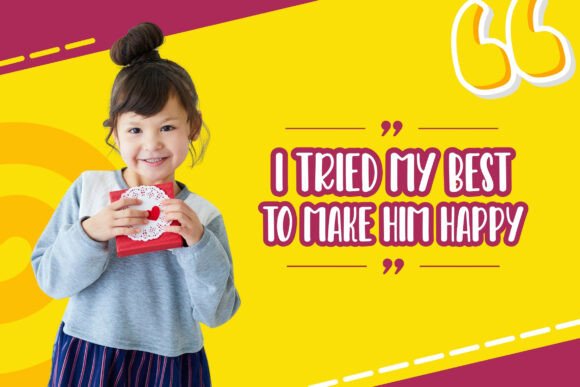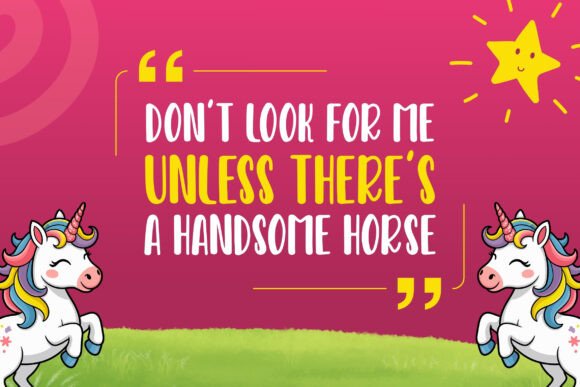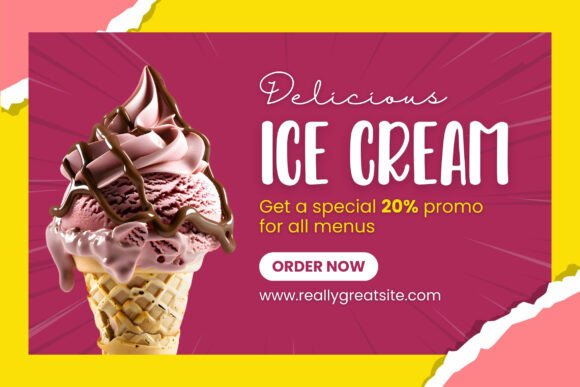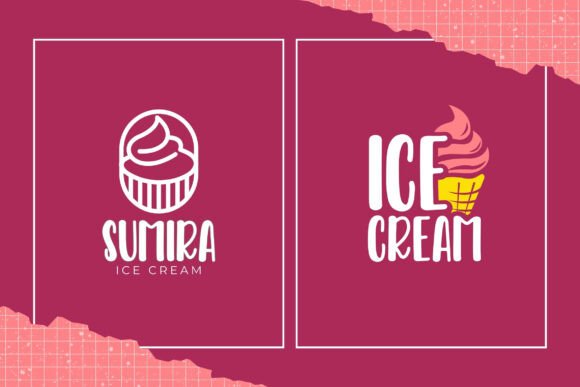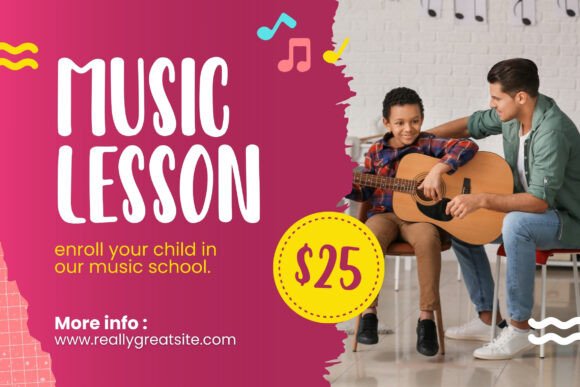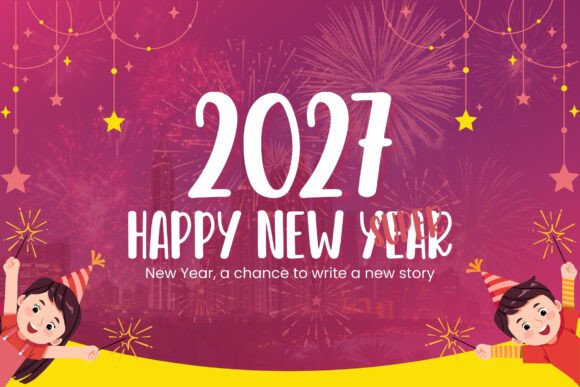
Discover the Whimsical World of Cute Sumira Font
Have you ever been in the middle of a design project, and suddenly, you’re stuck on finding the perfect font? I recall a recent experience where I was working on a children’s storybook, and my client requested a font that was both playful and calming. After scouring through numerous font libraries, I stumbled upon Cute Sumira – a whimsical and dreamy kids font that instantly captured the essence of childhood magic.
A Personal Review of Cute Sumira
What I Love About Cute Sumira ✨
- ✨ Slim strokes and rounded forms that give it a soft, gentle appearance
- ✅ Perfect for designs that require a sense of imagination and storytelling
- 🎨 Ideal for creative projects inspired by childhood dreams, such as children’s storybooks and fairy-tale designs
- 🌈 The font’s playful yet calm demeanor makes it suitable for a wide range of applications, from cute illustrations to kids’ branding
- ⚠️ Limited availability of stylistic alternates, which might restrict design flexibility
- 🤔 Some characters may appear slightly condensed, which could affect readability at smaller font sizes
The Designer’s Inspiration Behind Cute Sumira
Cute Sumira was designed with the intention of capturing the essence of childhood imagination and storytelling. The font’s creator drew inspiration from classic children’s books and fairy tales, aiming to create a font that would transport readers to a world of wonder and magic.
Q: What type of projects is Cute Sumira best suited for?
A: Cute Sumira is ideal for designs that require a sense of imagination, softness, and storytelling magic, such as children’s storybooks, fairy-tale designs, cute illustrations, and kids’ branding.
Q: Is Cute Sumira suitable for body text?
A: While Cute Sumira is a beautiful font, it may not be the best choice for body text due to its slim strokes and condensed characters. It’s better suited for headings, titles, and short paragraphs.